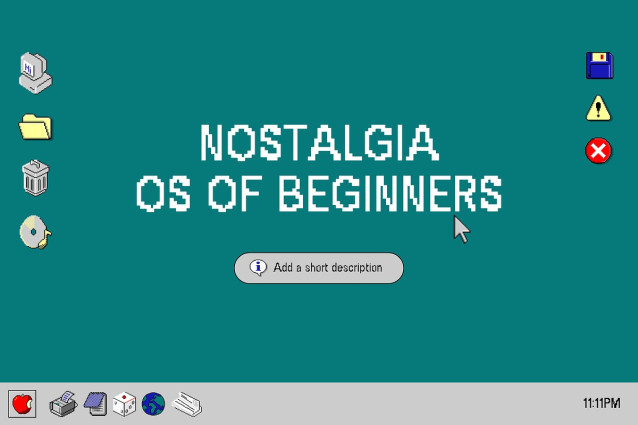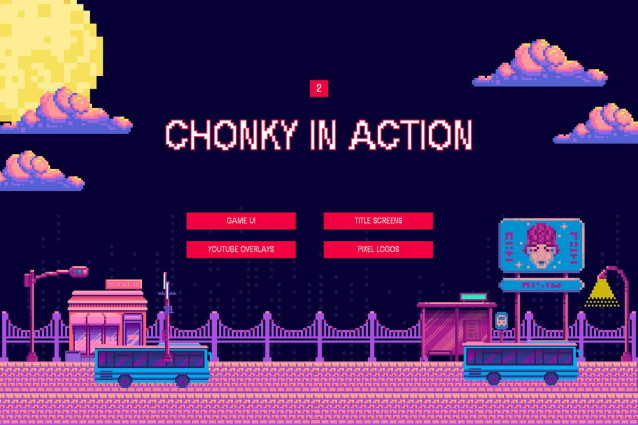
Chonky Bits Font
Chonky Bits Font, the pixel font that packs a punch! Bold, bubbly, and brimming with retro charm, this font was made for creatives who want their text to shout “look at me” in 8-bit style.
Built for game devs, designers, streamers, and nostalgic dreamers, Chonky Bits brings back the feel of old-school arcades—with a modern, polished edge.